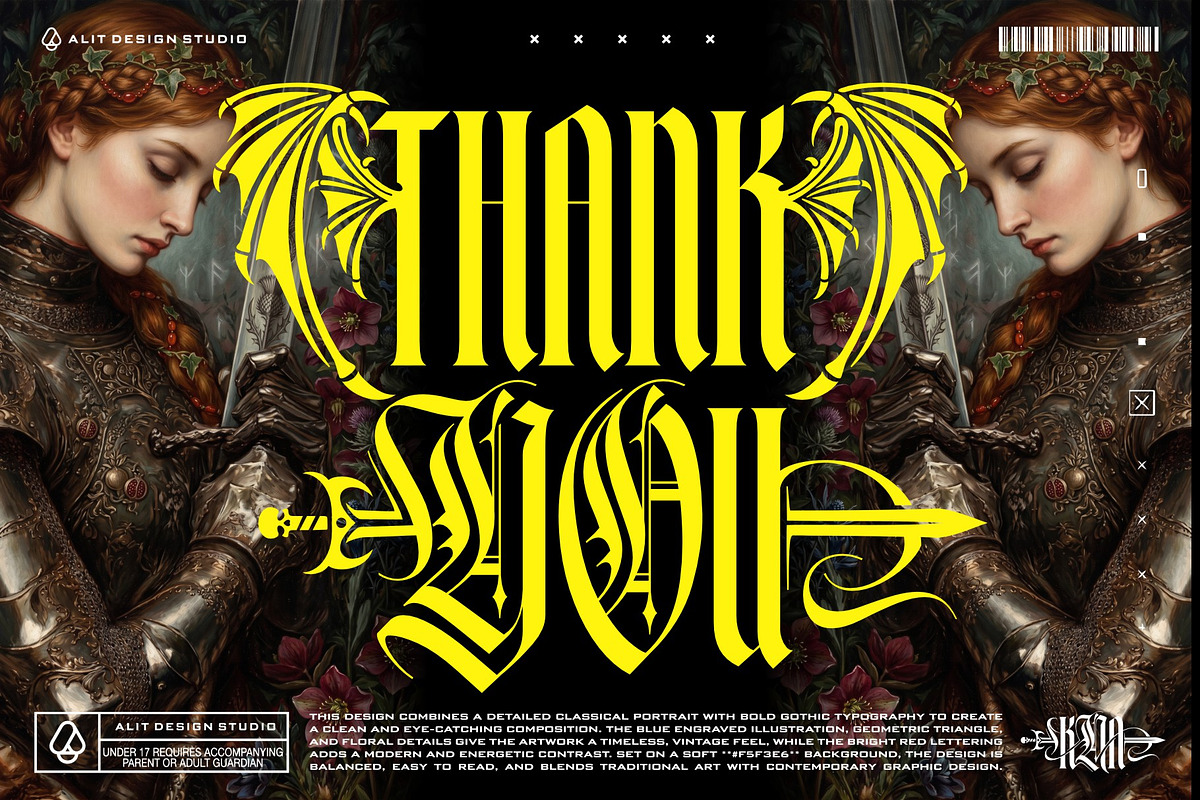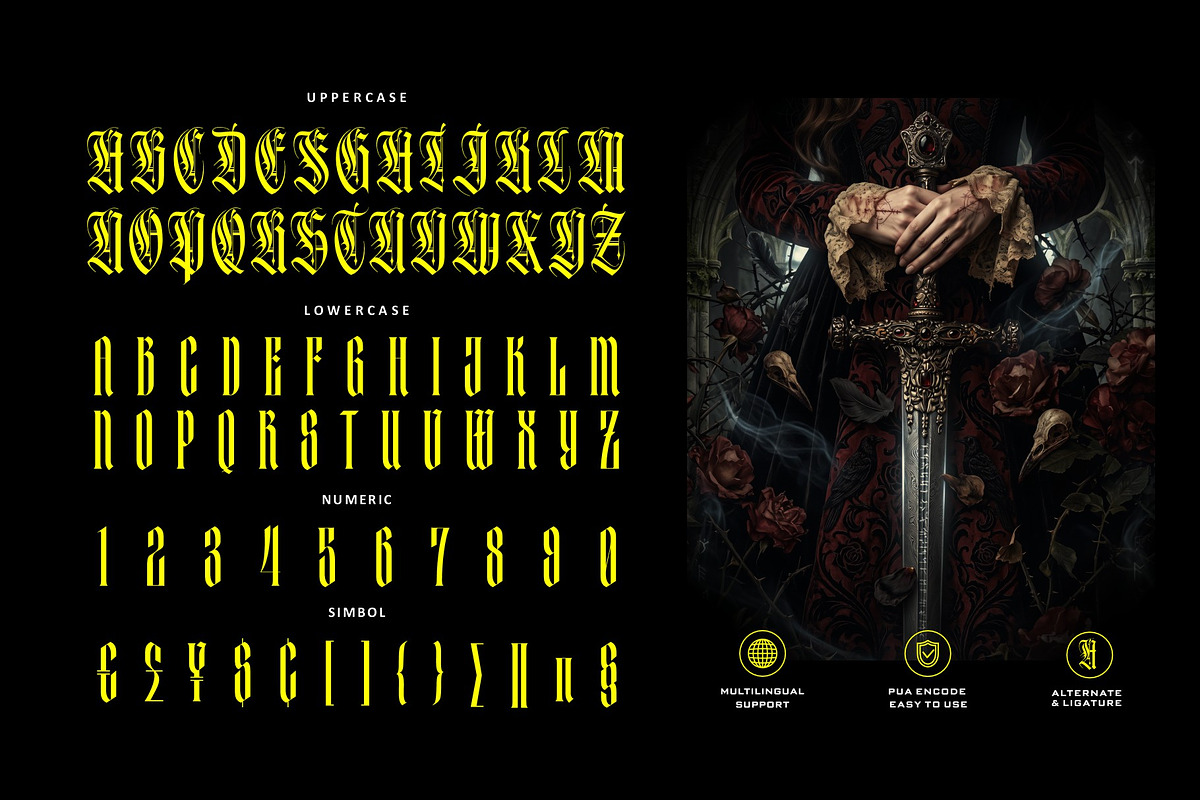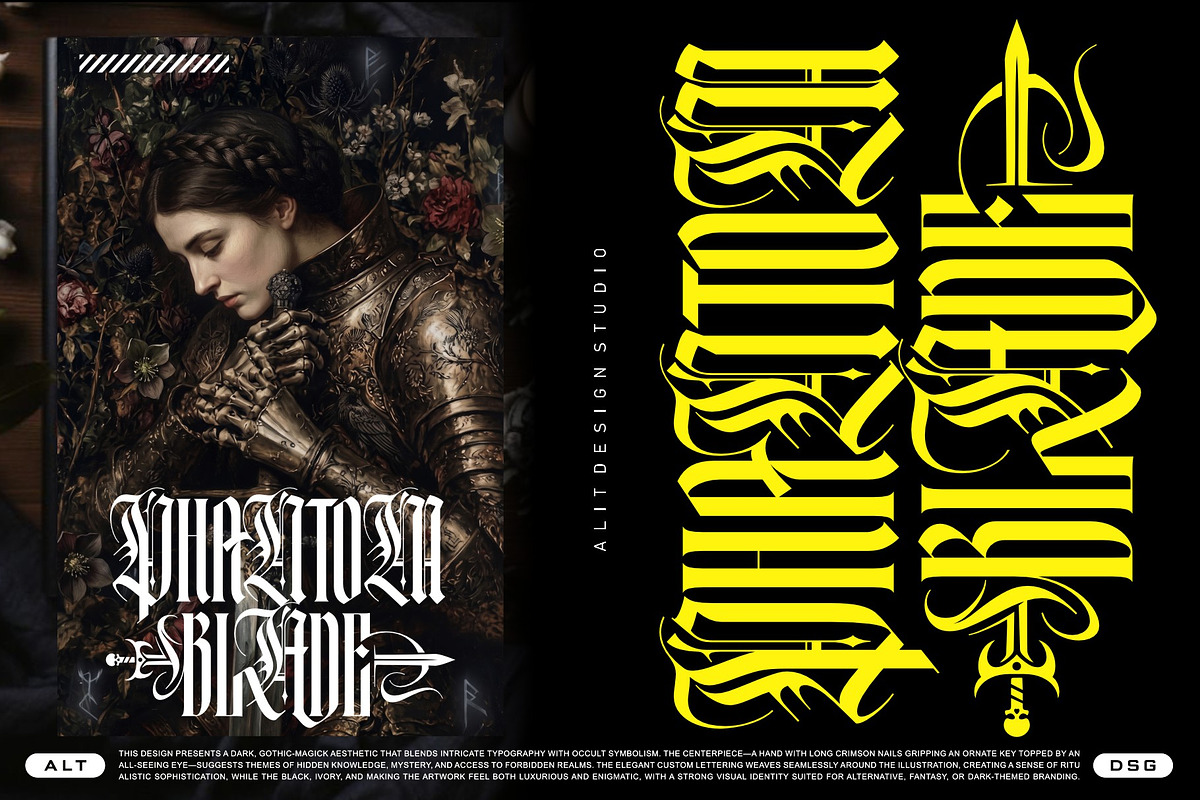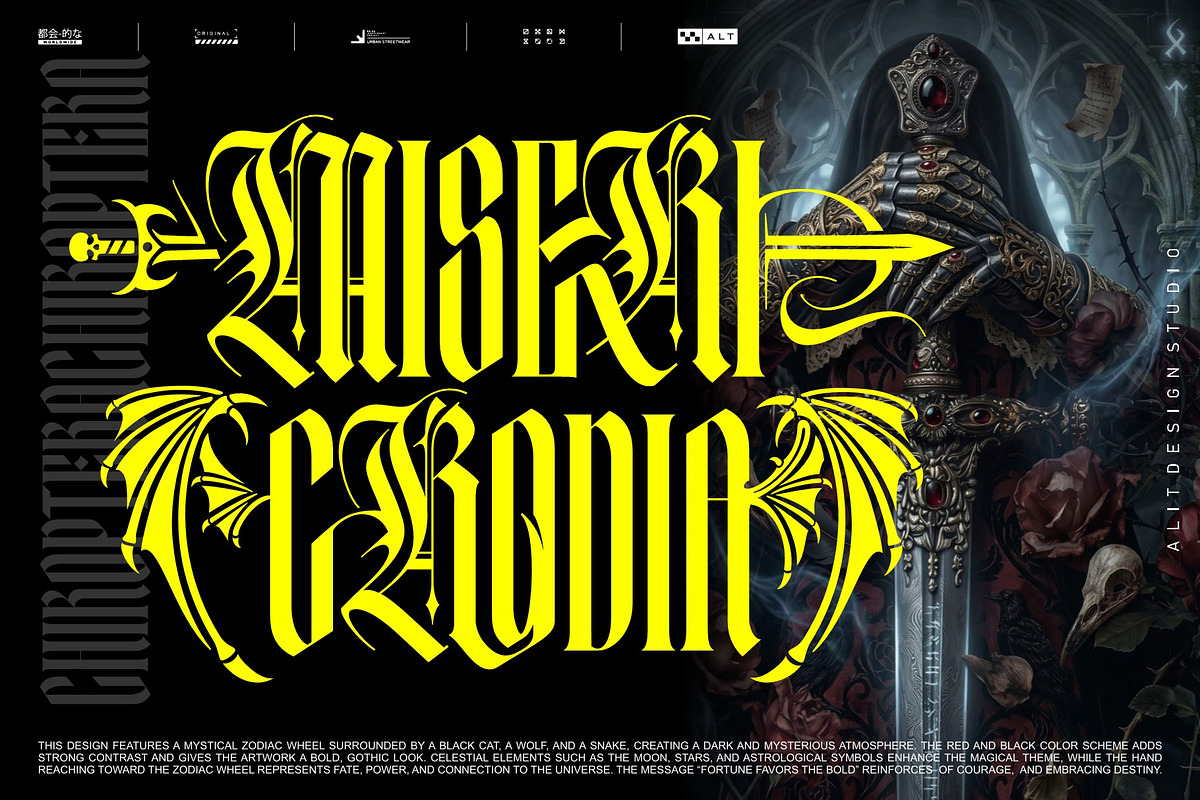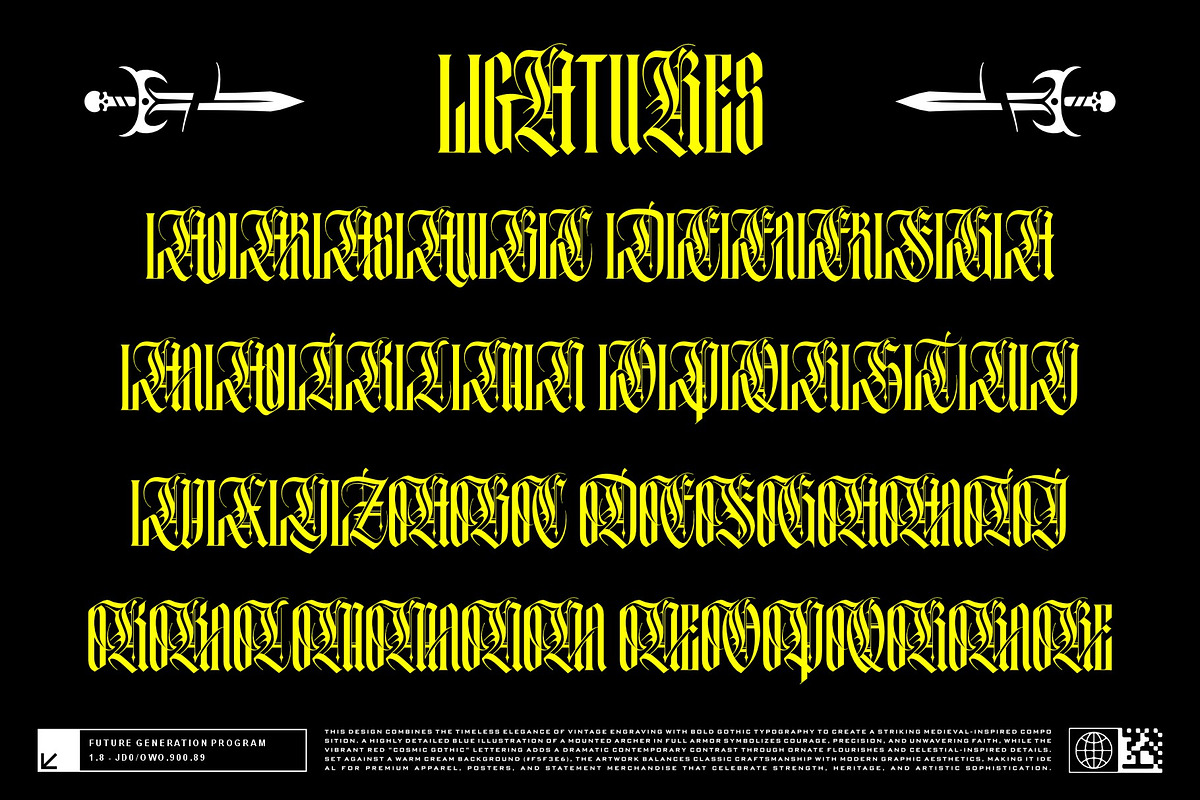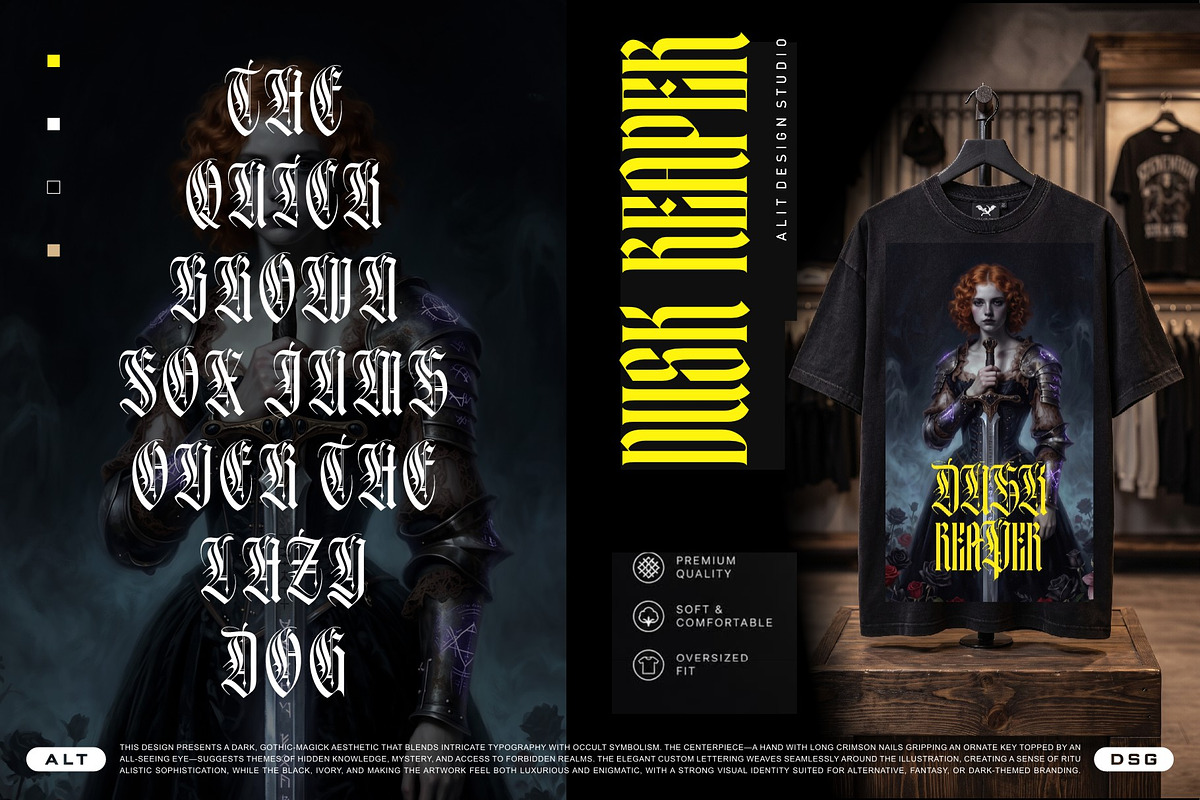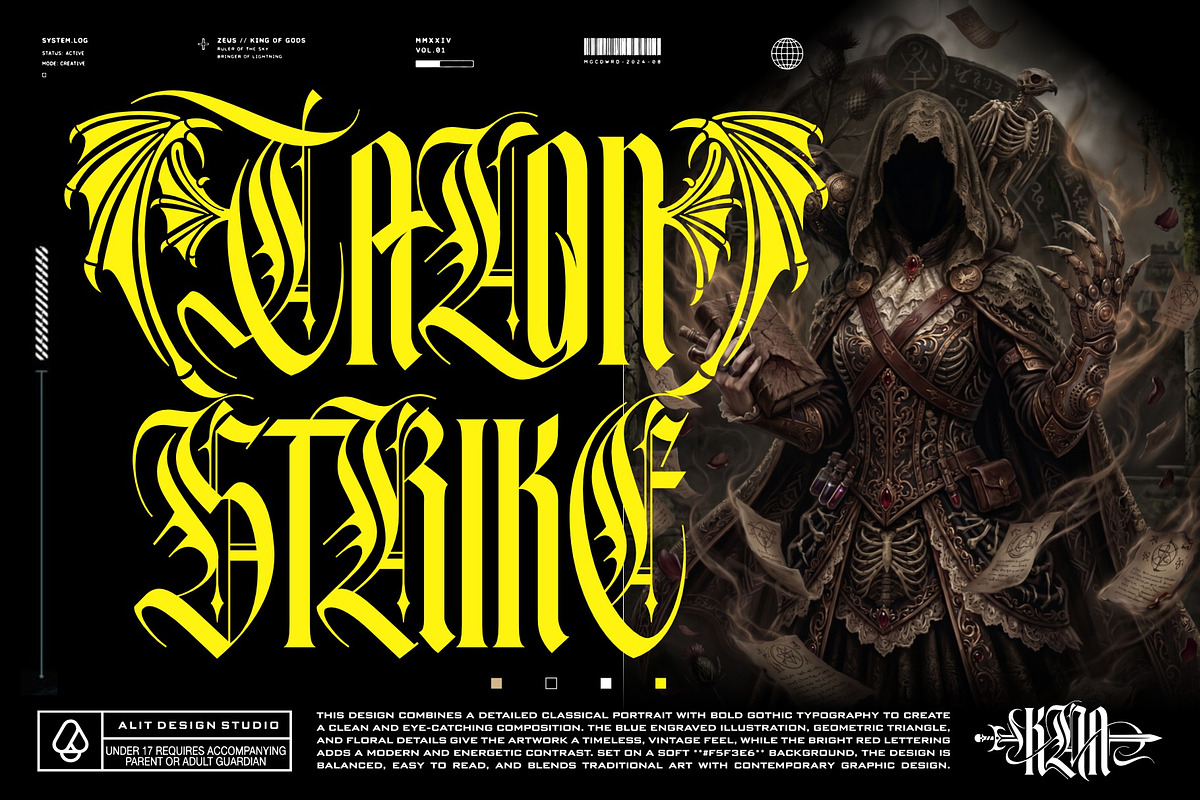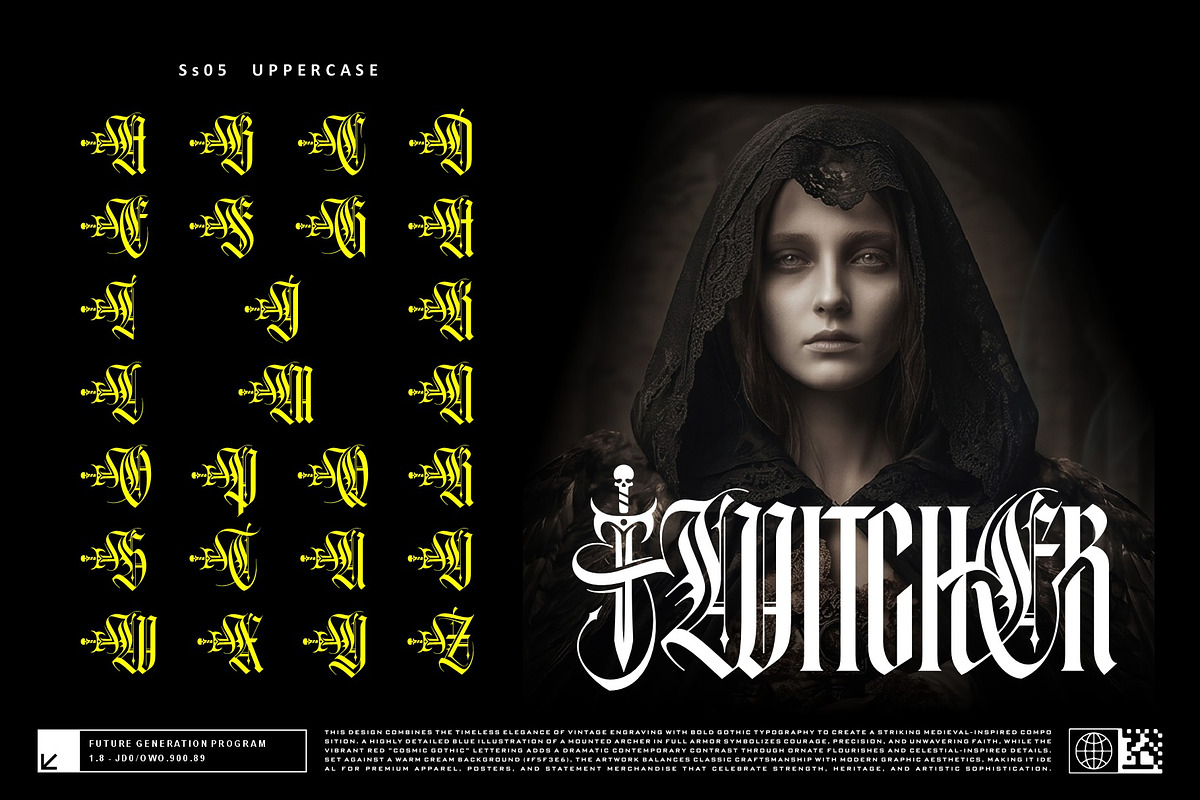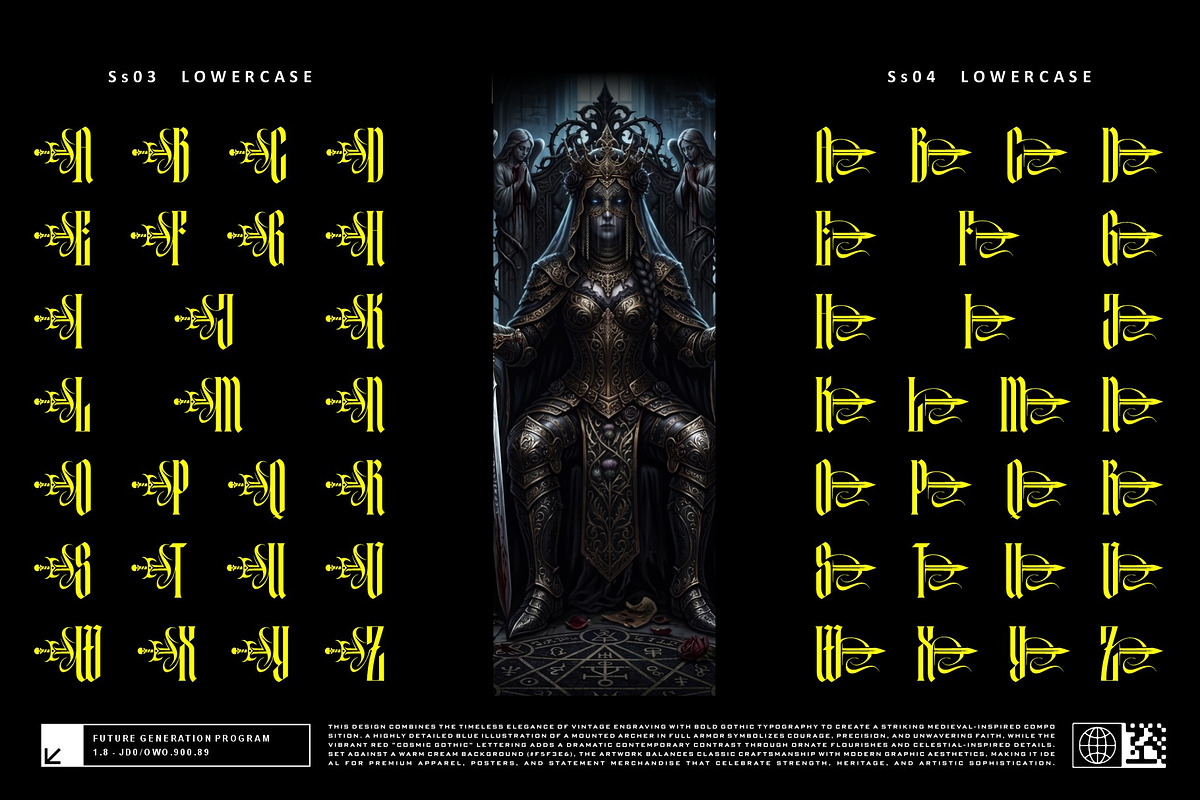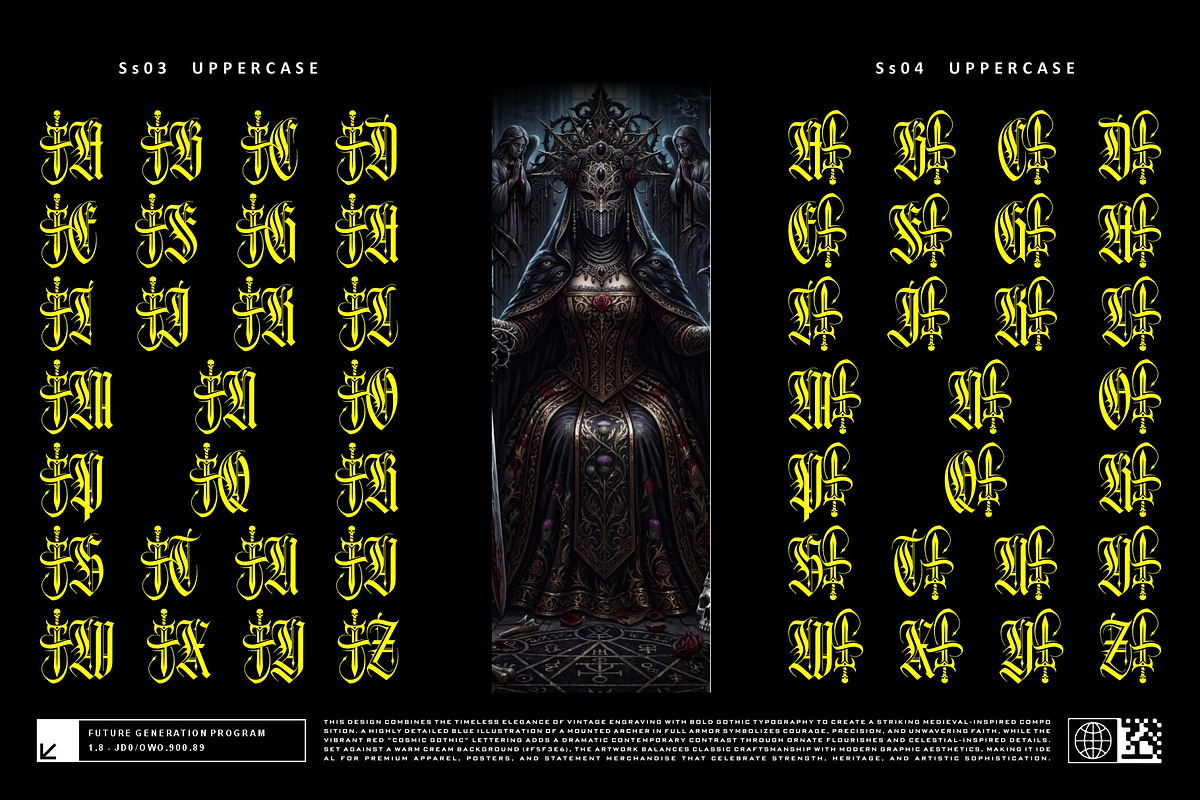
Mortal Blade Typeface
Mortal Blade – Epic Gothic Typeface
Unleash the dark elegance and raw power of Mortal Blade, a striking gothic blackletter typeface designed for projects that demand attention. Forged with the intricate details of medieval aesthetics, dark fantasy, and vintage engraving, Mortal Blade strikes the perfect balance between classic craftsmanship and contemporary graphic design.
What makes Mortal Blade truly exceptional is its breathtaking versatility. With a massive library of 857 glyphs, this typeface offers an endless realm of creative possibilities. Explore a rich collection of custom alternates, including majestic dragon-wing motifs and sharp, sword-inspired crossbars. Whether you are designing a heavy metal album cover, an epic gaming logo, or a sophisticated streetwear apparel brand, Mortal Blade gives your typography a commanding, fierce, and luxurious presence.
Band Logos & Merchandise (Heavy Metal, Rock, Alternative)
Gaming Branding & Esports Logos
Dark Fantasy Book Covers & Movie Posters
Tattoo Studio Branding & Lettering
Streetwear & Premium Apparel Design
Vintage & Occult-themed Packaging
Uppercase & Lowercase: Highly detailed and legible gothic characters.
Numerals & Punctuation: Complete set for all your typing needs.
857 Total Glyphs: A massive character set for ultimate customization.
5 Stylistic Sets (Ss01 - Ss05): Packed with elaborate alternates, including wing ornaments, sword elements, and ornate gothic flourishes to make your typography truly unique.
Extensive Ligatures: Seamless character combinations that create a custom, hand-lettered feel.
Multilingual Support: Ready for global reach with support for various languages.
PUA Encoded: Fully accessible without the need for specialized design software. All alternate characters can be easily accessed on both Mac and Windows.
Command the shadows and make a bold statement with Mortal Blade Typeface.